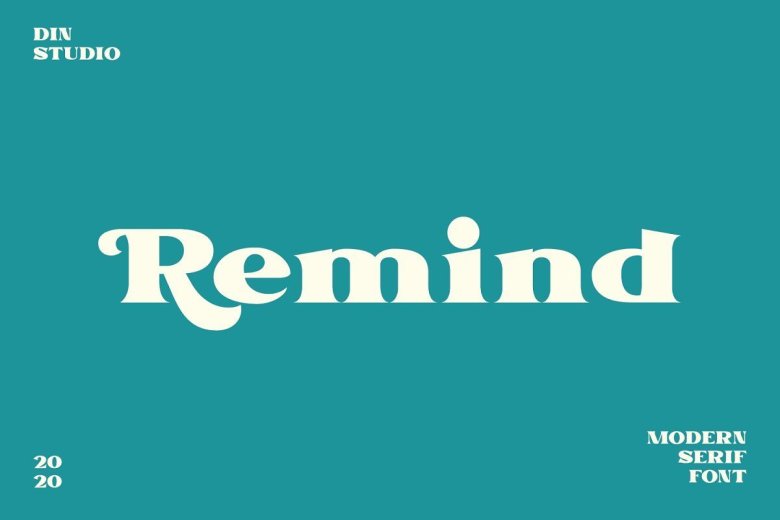
Remind Modern Serif Font
The Remind Modern Serif Font perfectly represents vintage esthetics in a contemporary serif typeface. The Remind font matches applies in some designs such as the logotype, brand, magazine, website or blog headlines, packaging, branding, quotes, business cards and more custom design.